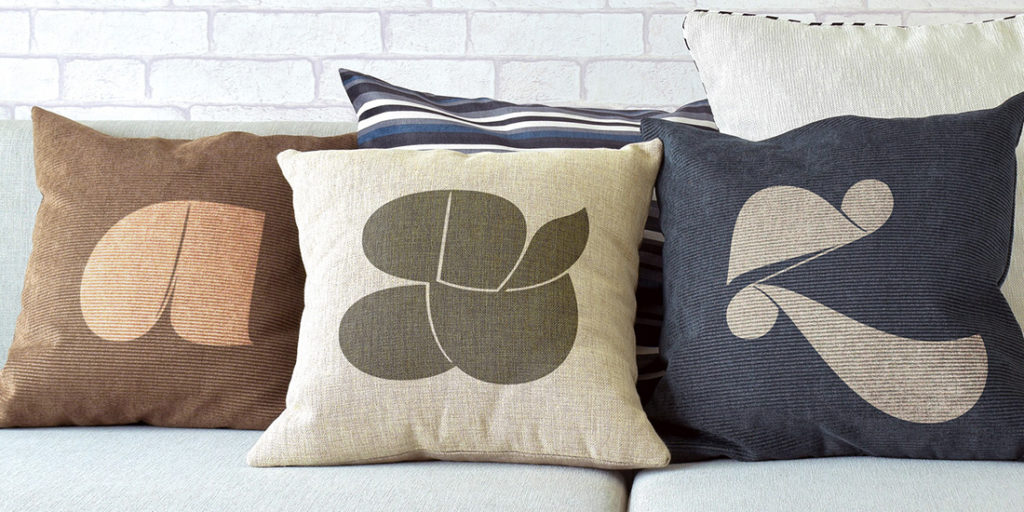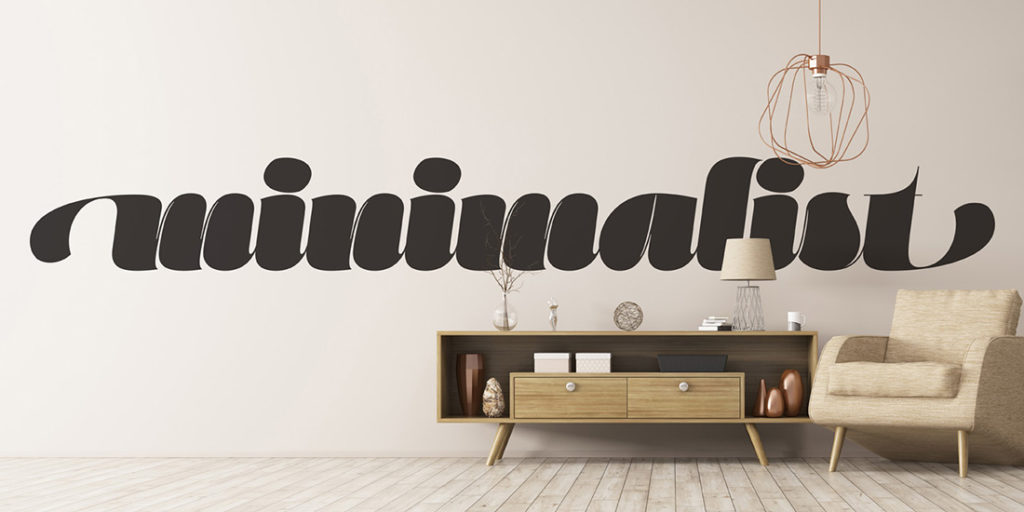
Name: Marshmallow
Designer: Neil Summerour
Foundry: Positype
Release Date: February 2017
Back story: Love, lust, and hedonism went into the development of Marshmallow. It all began in 2014 when designer Neil Summerour started working on a typeface called Hedonist, exploring mass and contrast with the goal of developing what he calls an “overly indulgent” script. Hedonist’s letterforms led to Love Script, and also influenced a version of Summerour’s popular Lust family, which became the ultra-high contrast Lust Hedonist.
“The extra time and perspective I spent allowed for a more complex investigation of how to keep heavy mass moving fluidly at high contrast,” he says.
“I hit the mark I wanted: to deliver a typeface that would make people gasp when they saw the almost painful amount of contrast.”
Why’s it called Marshmallow? One look at its bouncy, pillowy letterforms should answer that. “I laughed out loud when I settled on Marshmallow for the name,” says Summerour. “The Script style holds the standard for the connected font, and Fluff for the unconnected. Naming it just fell into place and inspired me to go back into each font and add even more details and additional characters to express the name and make it that much more fun and flexible for the designer.”
What are its distinguishing characteristics? For starters, an inherent sense of exuberant decadence. Marshmallow’s letterforms, all flourish and contrast, balance tight apertures and sharp wire-thin connections with an ebb and flow of mass that resolves in a very pleasant, friendly way. Soft, malleable, and flowing, Marshmallow Script tops out at 820 characters, and both fonts feature a wide array of complementary swash and stylistic alternates, with varying options in the three additional stylistic sets, titling alternates, ligatures, and contextual ligature combinations.
What should I use it for? “A typeface like this is meant to let the creative, be, well, creative with it and have fun,” Summerour says. “Marshmallow isn’t a good fit everywhere, but for the right projects, it should be used with indulgent abandon… which is pretty much what happens when we take a bite into a soft, gooey marshmallow anyway, right?”
Who’s it friends with? The designer likes it with his new cheerful yet no-nonsense sans serif Aago. Since Marshmallow shares some DNA with Lust and Lust Pro, these typefaces love each other like s’mores love a campfire.